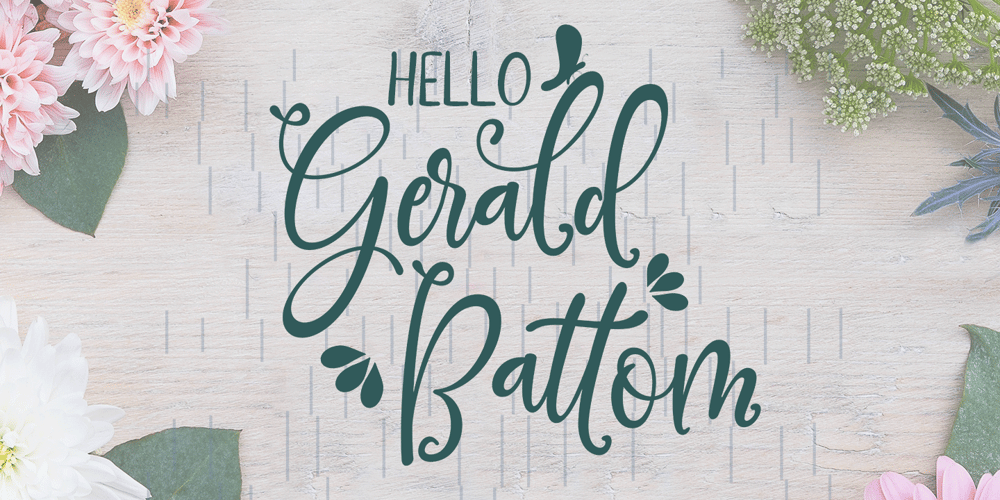
Gerald Battom
Gerald Battom font
Gerald Battom Font Family was designed by Sidiq Fahmi and published by Rotterlab Studio. Gerald Battom contains 1 styles and family package options. Gerald Battom is a new modern script font with an irregular base line. Gerald Battom looks beautiful in wedding invitations, thank you cards, quotes, greeting cards, logos, business cards, and more. Perfect for use in ink or watercolors. It includes initial and terminal letters, alternatives and support for many languages.To activate the OpenType Stylistic alternative, you need a program that supports OpenType features such as Adobe Illustrator CS, Adobe Indesign & CorelDraw X6-X7, Microsoft Word 2010 or newer versions. There are additional ways to access alternatives / swashes, using Character Maps (Windows), Nexus Fonts (Windows), Font Books (Mac) or software programs such as PopChar (for Windows and Mac).How to access all alternative characters:https: //www.youtube.com/watch?v=Go9vacoYmBwhttps: //www.youtube.com/watch?v=XzwjMkbB-wQNeed help or have questions, let me know. I am happy to help :)Thank you & Congratulations on Design!